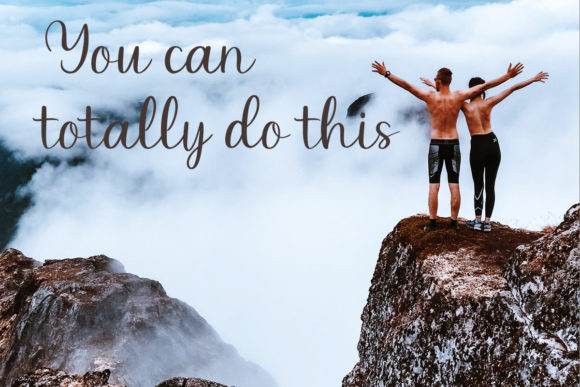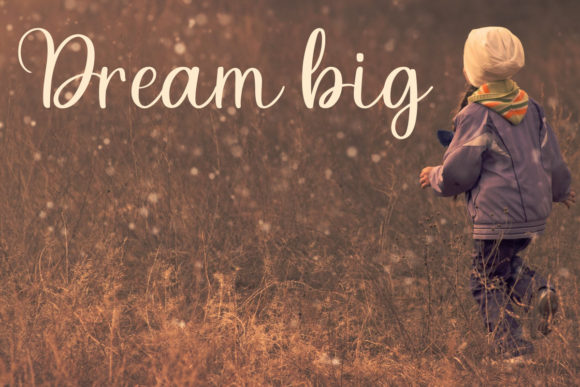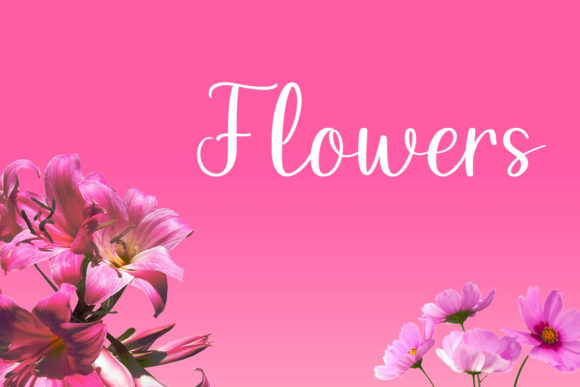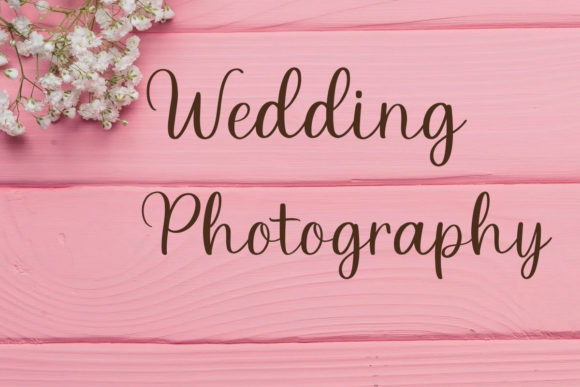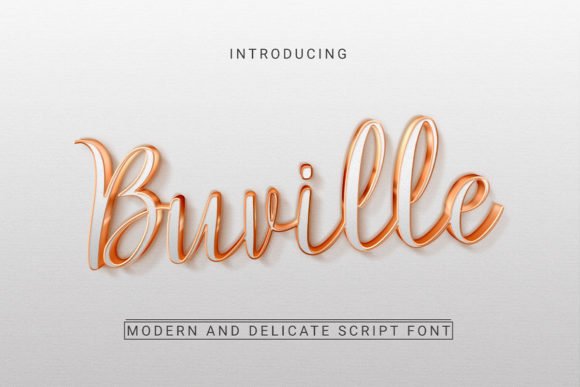
The Perfect Script: Unlocking the Beauty of Buville Font
Have you ever stared at a blank page, waiting for the perfect font to spark your creativity? For designers, finding the right typeface can be a game-changer. It’s that moment when everything falls into place, and your vision starts to take shape. For me, it was the discovery of Buville Font, a modern and delicate script font that exudes elegance and sophistication.
Buville Font is more than just a font – it’s a tool for designers to create stunning visuals that leave a lasting impression. With its flowing lines and classy look, it’s perfect for logos, branding, invitations, stationery, and wedding designs. Whether you’re a seasoned pro or a design newbie, Buville Font is a valuable addition to your toolkit.
Buville Font Key Features
- Unique Characteristics: Buville Font features a unique blend of modern and vintage elements, making it perfect for designers who want to add a touch of sophistication to their work.
- Font Weight: Buville Font is available in regular and bold weights, allowing designers to add depth and emphasis to their text.
Review of Buville Font
As a designer, I’ve had the opportunity to work with various fonts, and I must say that Buville Font has its unique charm. ✨ One thing that stands out is its elegant, handwritten feel, which makes it perfect for creative projects that require a touch of sophistication.
- Beautiful, cursive script
- Unique, high-end feel
- Perfect for branding, invitations, and other creative projects
However, as much as I appreciate Buville Font’s aesthetic, I do have some reservations. ⚠️ The font can be quite difficult to read at smaller font sizes, and it may not be the best choice for body text or large blocks of text.
- Difficult to read at smaller font sizes
- Not ideal for body text or large blocks of text
- Limited language support
Overall, I think Buville Font is a great addition to any designer’s toolkit, but it’s essential to use it judiciously. When used correctly, it can add a touch of elegance and sophistication to any project. However, when used in situations where readability is crucial, it may not be the best choice.
To get the most out of Buville Font, use it in combination with other elegant fonts, and pair it with a clean and simple design. You can also use it to create a vintage or distressed look by adjusting the font size and style.
Buville Font is commonly used in:
- Photography and art projects